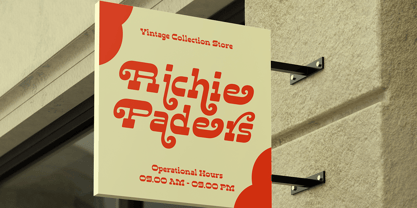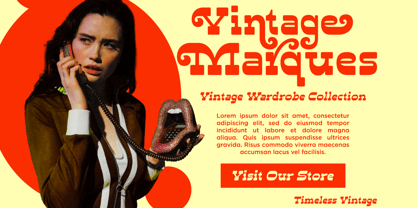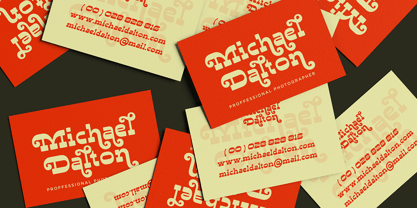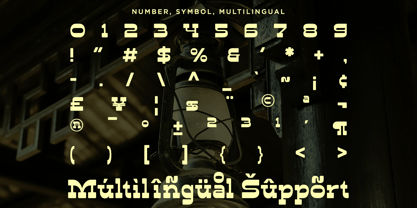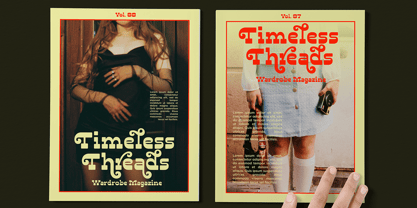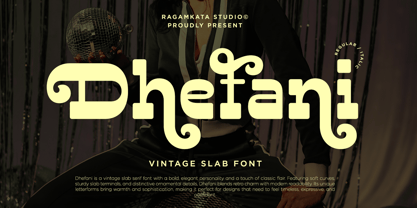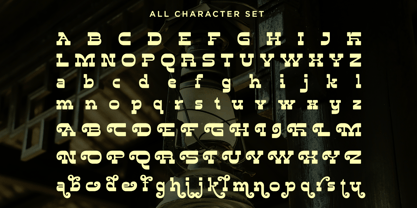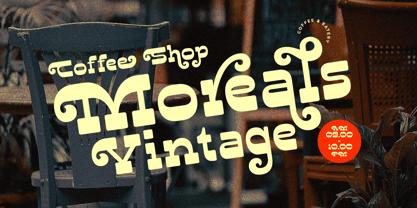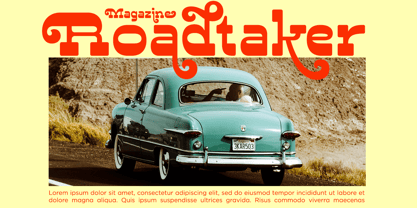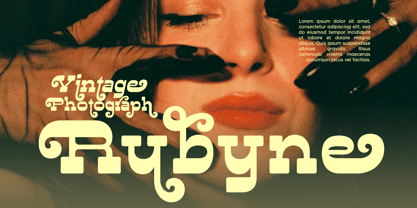
Dhefani
La familia tipográfica Dhefani fue diseñada por Yogiswhara Dio Prakoso Riadi y publicada por RagamKata. Dhefani contiene 2 estilos y opciones de paquete familiar. Más información sobre esta familia
Dhefani is a vintage slab serif font that exudes a bold, elegant personality with a hint of classic flair. It features soft curves, sturdy slab terminals, and distinctive ornamental details, seamlessly blending retro charm with modern readability. The unique letterforms of Dhefani add warmth and sophistication, making it an ideal choice for designs that aim to convey a timeless, expressive, and confident feel. Perfect for logo design, branding, vintage posters, packaging, editorial headlines, book covers, café and restaurant branding, fashion labels, invitations, signage, social media graphics, and promotional materials. Thank You Ragamkata